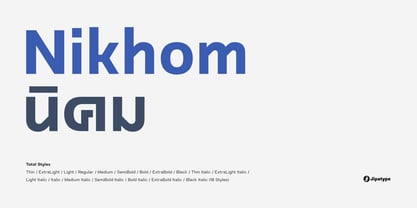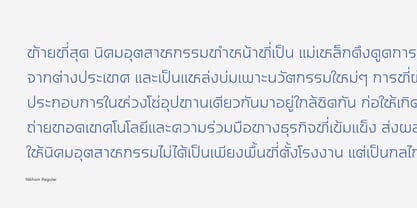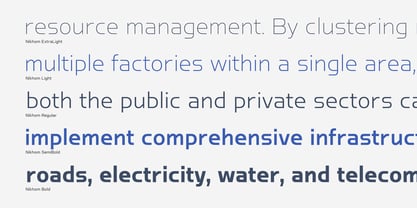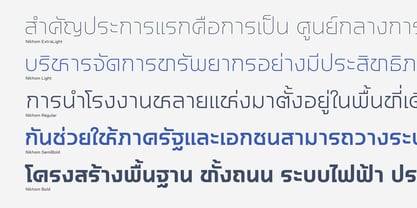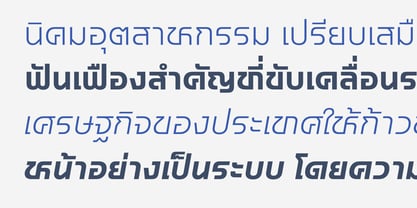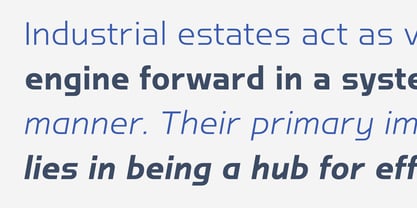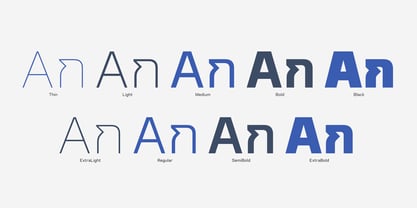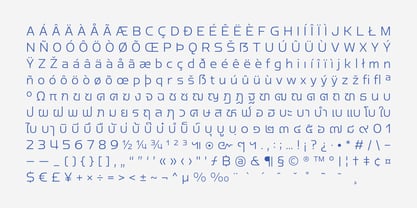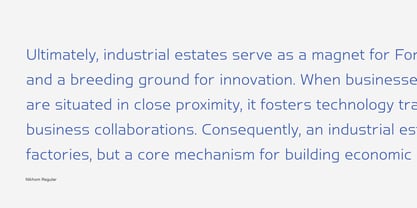
Nikhom
Die Schriftfamilie Nikhom wurde von Anupap Jaichumnan entworfen und von Jipatype veröffentlicht. Nikhom enthält 18 Stile und Familienpaketoptionen. Mehr über diese Familie
Nikhom is a clean and simple sans-serif typeface characterized by its flat-top and flat-bottom design, which aligns the character strokes horizontally with the baseline and x-height. This structure provides an orderly, stable, and easy-on-the-eyes appearance, supporting both loopless Thai and matching geometric Latin characters. Its balanced look makes it well-suited for promotional materials that need to communicate strength, reliability, and modernity, particularly within the manufacturing and industrial sectors.
Designer: Anupap Jaichumnan
Foundry: Jipatype
Jipatype is a one-man type foundry based in Bangkok, Thailand, officially established in 2022 but operating since 2019 by Anupap Jaichumnan. The foundry's name comes from the Thai word จิปาถะ, which translates to "miscellaneous", "assorted", or "various". This reflects the variety of design approaches and influences that are present in its typefaces. Jipatype creates fonts that blend traditional Thai design elements with modern typography trends. Each typeface is developed with careful attention to both aesthetic details and practical usability, making them suitable for a range of design projects. The work at Jipatype is characterized by a straightforward and functional approach to design, without unnecessary embellishment, aiming to provide clear and effective typographic solutions.